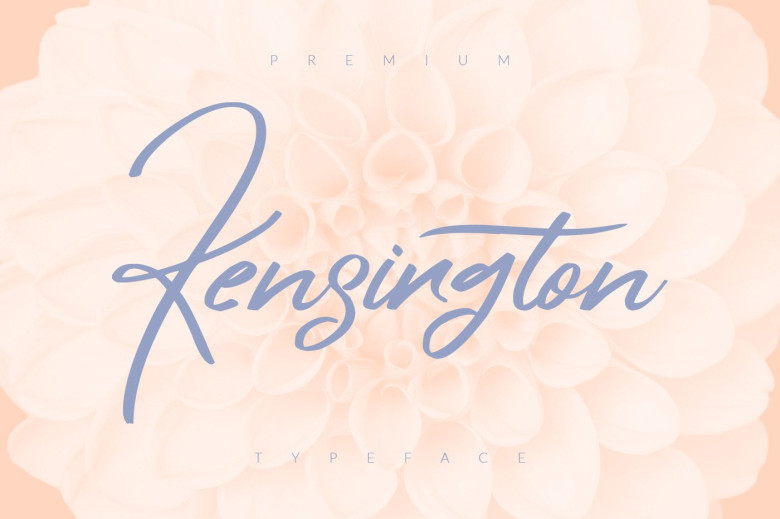
Kensington Script Font
It’s great, I’ve been waiting to get this font, and now introduced to you, you just enjoy. Introducing Kensington Script Font! Kensington is a font that is coming from a handwriting. Kensington designed and shared by font art. It flows like a signature while you type it. It really shows the art of hand-work. It is very legible even though its nature looks like it has extreme lines. It is really unique in this regard. Awesome! Isn’t it? ?